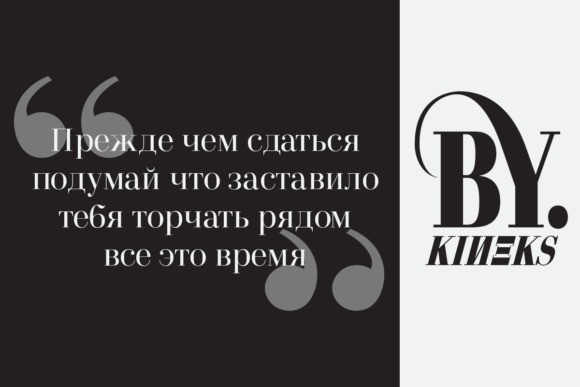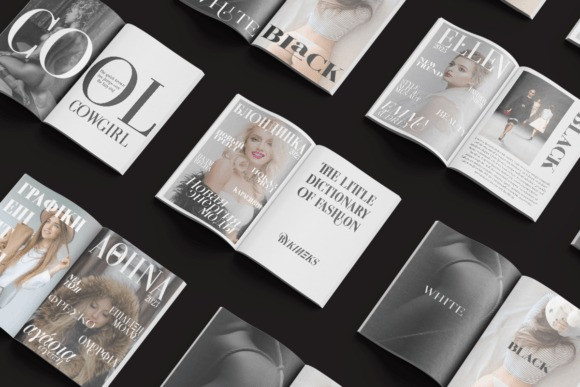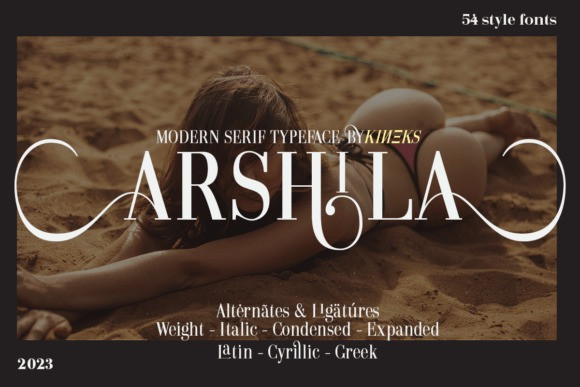
Arshila Font
Arshila Font is a unique and exquisite serif font that stands out from the crowd. This font features distinctive and intricate letterforms with a captivating style that adds a touch of individuality to any design project. Perfect for creating standout editorial designs, logos, or any project that requires a touch of sophistication and creativity. Elevate your designs with this exceptional font.